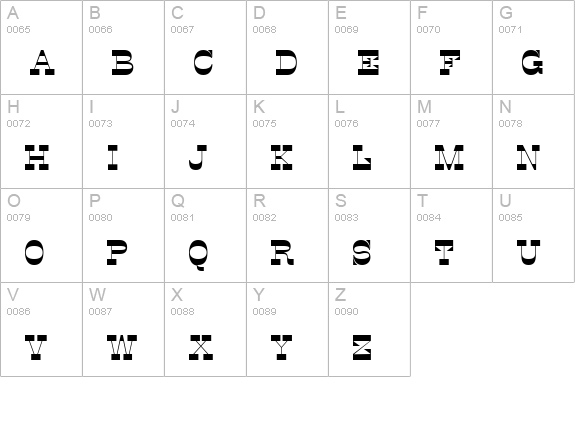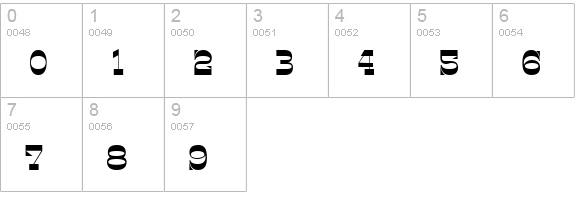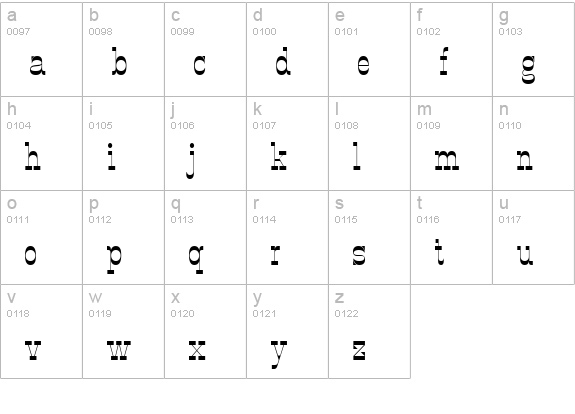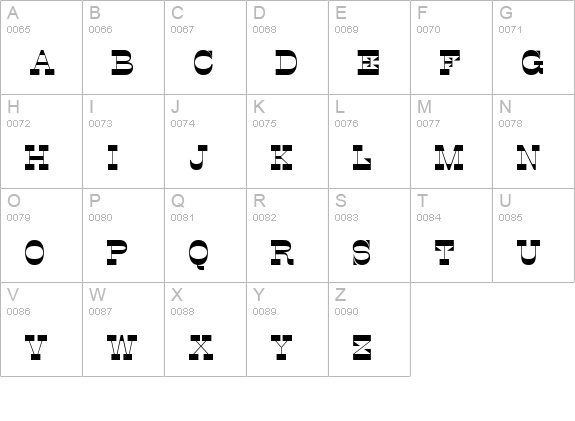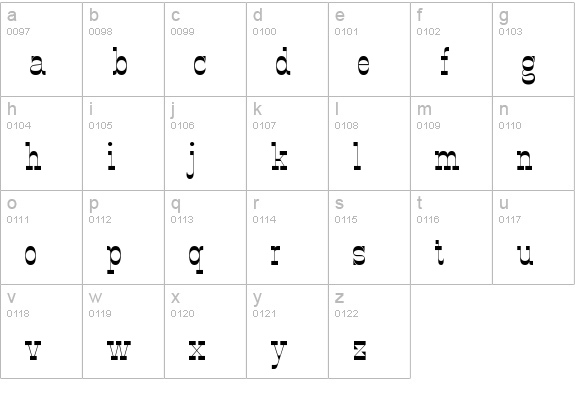
OK Corral Font Details
The OK Corral font is a rustic and vintage-inspired typeface that exudes a sense of old western charm and nostalgia. With its bold and rugged appearance, this font is perfect for creating eye-catching designs that evoke the spirit of the Wild West. Whether you're working on a poster, logo, or branding project, OK Corral is sure to make a statement. Best of all, this unique font is available for free download at FontsMarket.com, making it easily accessible for all your design needs. Embrace the frontier spirit with OK Corral font and add a touch of western flair to your next project.